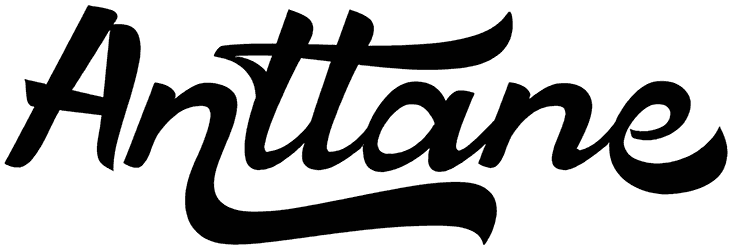
Anttane Font
Don’t you worry at all about the visual appeal of your texts when you have a font as popular as Anttane to try next time. This baseball font can be your ticket to mesmerizing the crowd with a nice cursive style and a classic modern twist.
How often would you get the chance to design the sweetest bon voyage cards, street food fair posters, E-book covers, and apparel product tags with a charming swash font like Anttane? You’re so lucky!